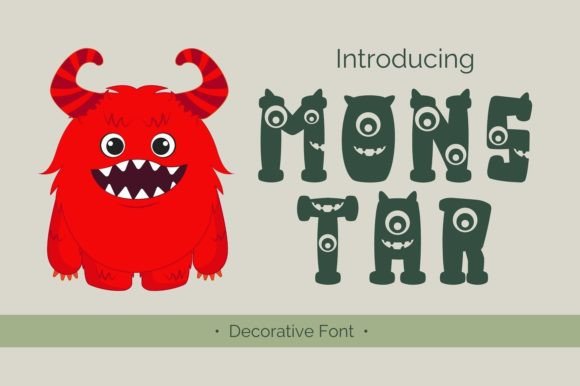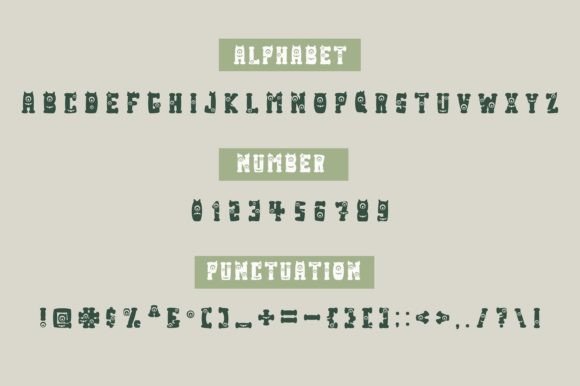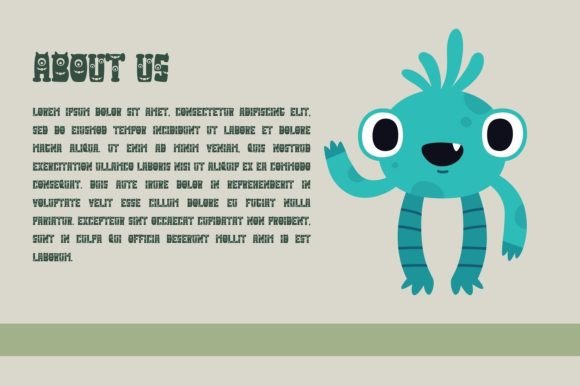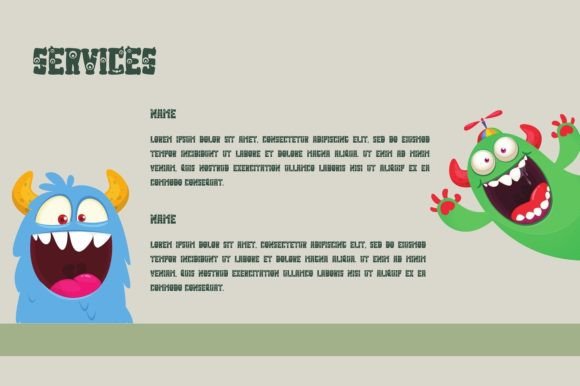
Monstar Font: A Playful Decorative Font for Halloween & Cute Crafts!
About the Monstar Font
The Monstar Font offers a perfect balance of form and function for your design needs. Monstar is a scary and fun decorative font. It embodies playfulness and authenticity and is the perfect choice for all your favorite Halloween projects, or even for blog posts, logos, branding, ads, invitations, greeting cards, planners, photo albums, decorations, and much more. Add it to any of your designs, and enjoy the results!
Monstar’s playful boldness makes it ideal for headlines, posters, and branding projects needing a fun, slightly mischievous feel. It works exceptionally well for Halloween-themed designs, children’s books, or brands targeting a younger demographic. However, its decorative nature makes it unsuitable for body text or UI elements requiring high readability.
Pairing Monstar with a clean sans-serif like Open Sans for body copy creates a strong contrast, balancing its playful energy with clear legibility. For a more sophisticated look, consider pairing it with a classic serif like Garamond or a geometric sans-serif like Futura. These pairings emphasize Monstar’s unique character without overwhelming the design.
Its core personality is best described as bold and playful, with a touch of the mischievous. Avoid using it for projects requiring a sophisticated or highly professional image.